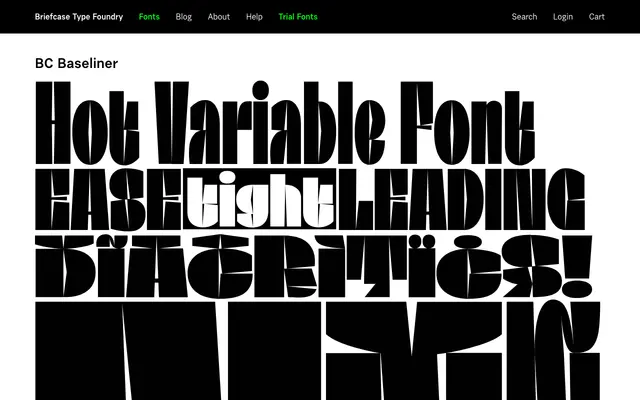
A display typeface from Briefcase Type Foundry with insufficient page detail to characterise further.
The page for BC Baseliner returned only navigation and header content, leaving weight, style and language coverage unconfirmed. Briefcase Type Foundry is a Czech foundry known for considered retail type, so BC Baseliner likely fits within a structured, professionally produced family. Further detail should be verified directly on the foundry's product page.
With minimal page content available, the BC Baseliner name and foundry context suggest a display-oriented typeface; classified as display pending further detail.